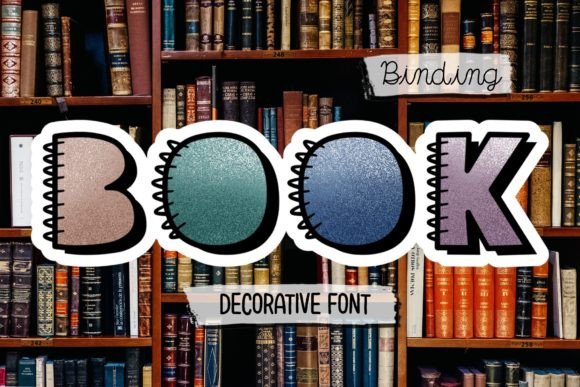
Introducing Book Binding Font: The Perfect Addition to Your Design Arsenal
Are you a designer, crafter, or DIY enthusiast looking for a unique and quirky font to elevate your projects? Look no further than Book Binding Font! This charming decorative font is perfect for adding a touch of personality to your logos, branding, social media, and crafty DIY projects.
What is Book Binding Font?
Book Binding Font is a fun and quirky decorative font that is sure to capture attention. Its distinctive style is reminiscent of traditional bookbinding, with a modern twist that makes it perfect for a wide range of applications. Whether you’re creating a logo, branding materials, or social media graphics, Book Binding Font is the perfect fit.
Key Features of Book Binding Font
- Unique and Quirky Style: Book Binding Font boasts a distinctive style that sets it apart from more traditional fonts.
- Highly Versatile: This font is perfect for a wide range of applications, from logos and branding to social media graphics and DIY projects.
- Easily Readable: Despite its decorative nature, Book Binding Font is highly readable, making it perfect for use in a variety of contexts.
- Scalable: Book Binding Font is designed to look great at any size, from small icons to large billboards.
Uses for Book Binding Font
Book Binding Font is an incredibly versatile font that can be used in a wide range of applications. Here are just a few ideas to get you started:
- Logos and Branding: Create a unique and memorable logo for your business or brand with Book Binding Font.
- Social Media Graphics: Add a touch of personality to your social media graphics, including Facebook posts, Twitter headers, and Instagram stories.
- Crafty DIY Projects: Use Book Binding Font to add a personal touch to your crafty DIY projects, such as handmade cards, gift tags, and scrapbooking.
- Stationery and Invitations: Create beautiful stationery and invitations with Book Binding Font, perfect for weddings, parties, and other special occasions.
Tips for Using Book Binding Font
Here are a few tips for getting the most out of Book Binding Font:
- Experiment with Colors: Book Binding Font looks great in a wide range of colors, so don’t be afraid to experiment and find the perfect hue for your project.
- Mix and Match Fonts: Combine Book Binding Font with other fonts to create a unique and eye-catching look.
- Pay Attention to Size: While Book Binding Font is designed to look great at any size, it’s essential to ensure that it’s legible in the context of your project.
Book Binding Font is a fun and quirky decorative font that’s perfect for designers, crafters, and DIY enthusiasts. With its unique style, versatility, and readability, it’s an excellent addition to any design arsenal. Whether you’re creating logos, branding materials, social media graphics, or crafty DIY projects, Book Binding Font is sure to elevate your work and add a touch of personality.